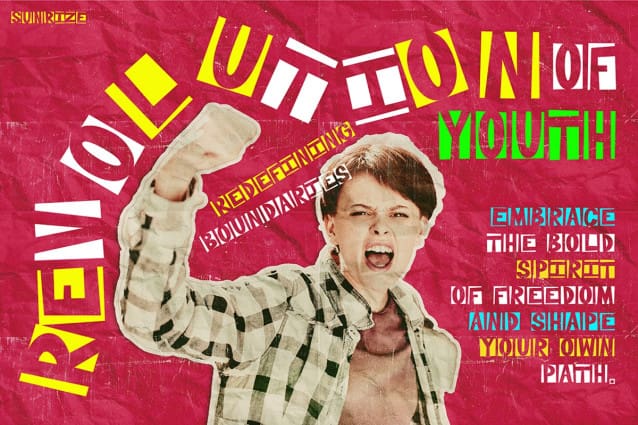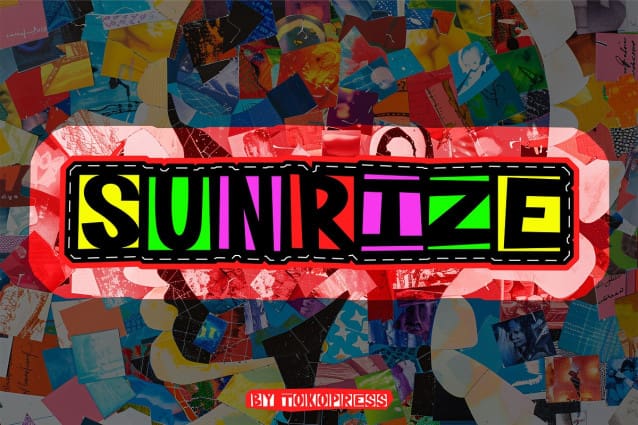
Sunrize Display Font
Sunrize Display Font is the perfect choice! Inspired by the retro era with its bold and fun aesthetic, this font is ideal for music posters, festival events, and any creative design that demands attention.
Each character exudes energy, joy, and a carefree spirit, making it the perfect addition to any project that aims to stand out. Add a unique touch to your designs with Sunrize Font!